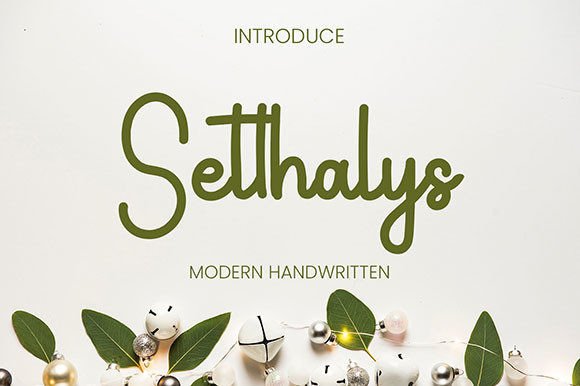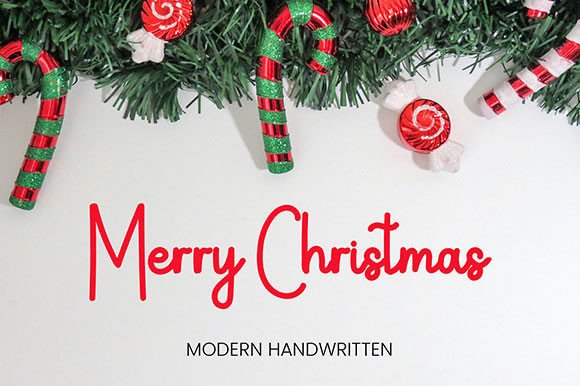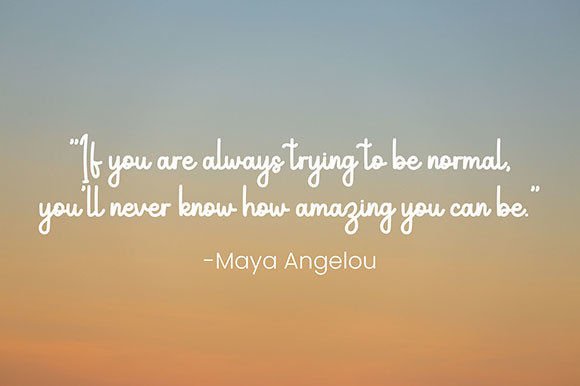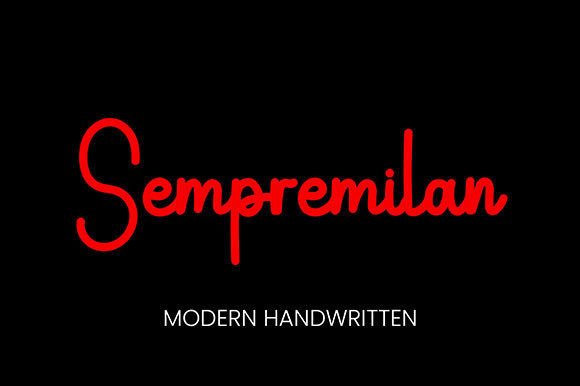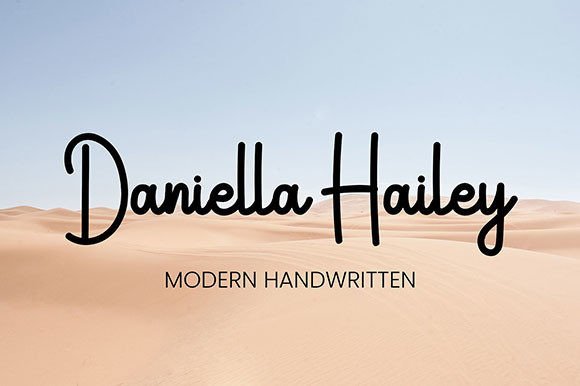
About Setthalys Font
Setthalys is a magical script font carefully created with a touch of elegance. Whether you’re looking for fonts for Instagram or calligraphy scripts for DIY projects, this font will turn any creative idea into a true piece of art!